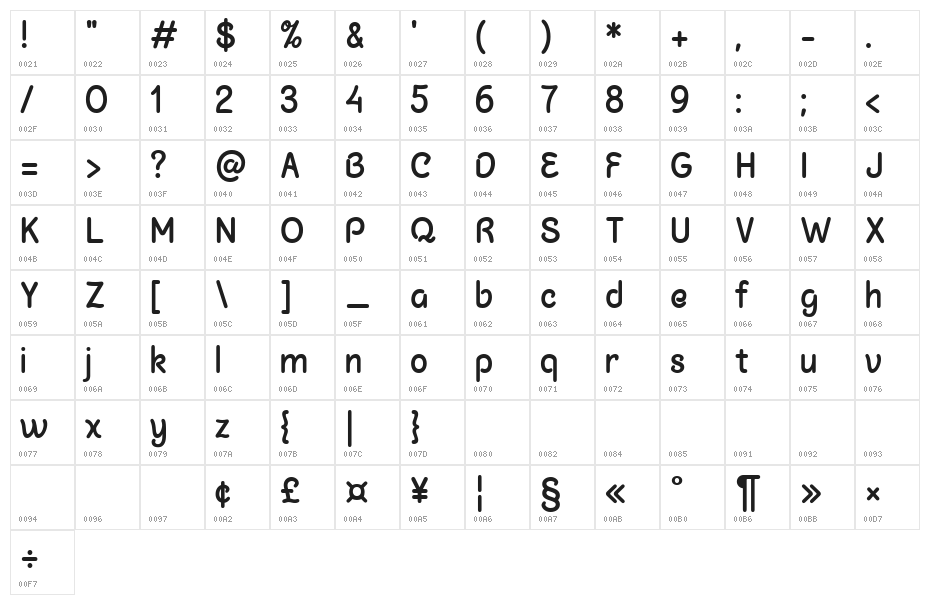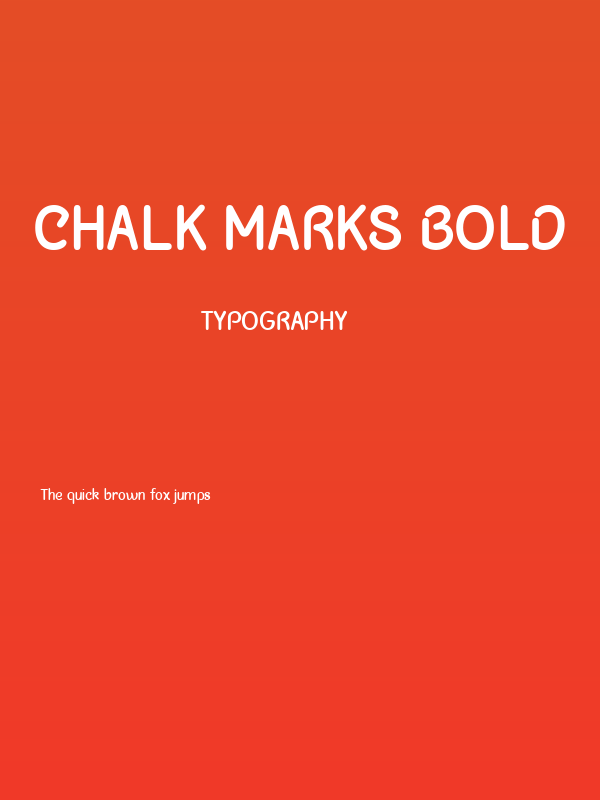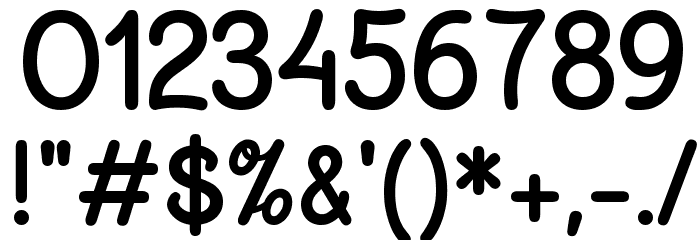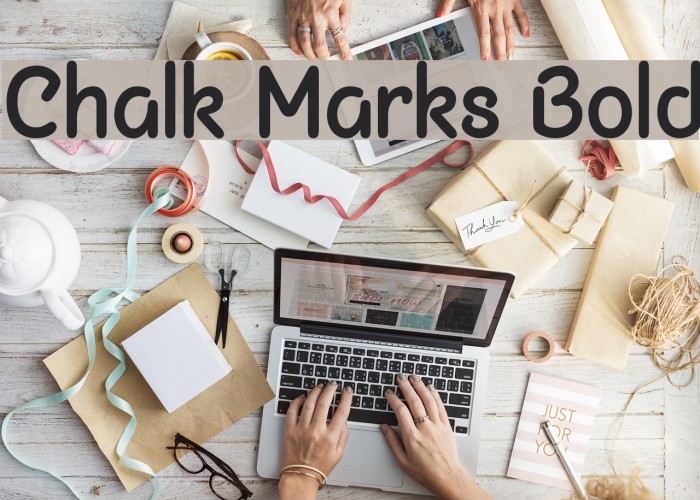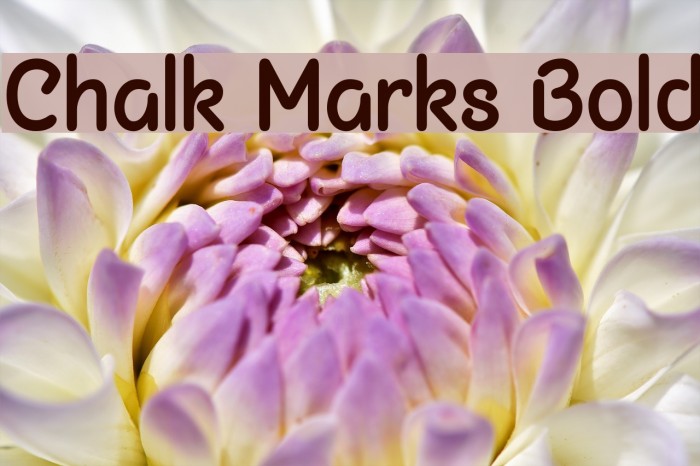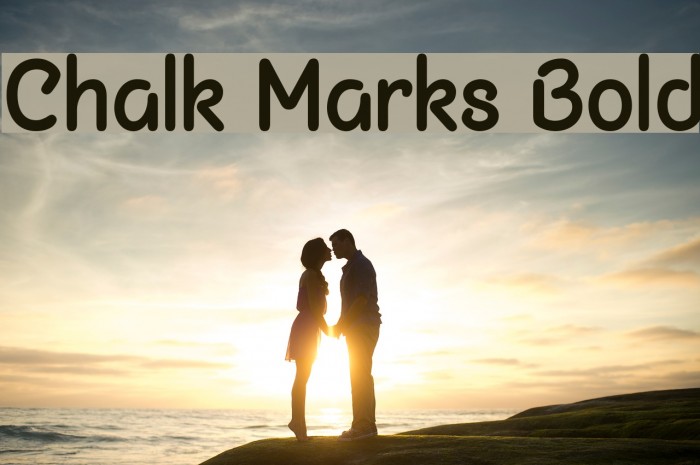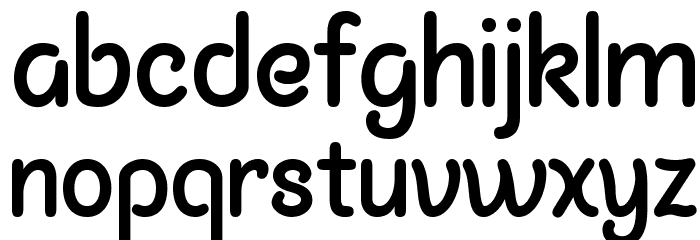
Chalk Marks Bold Font
This font exhibits a playful and bold style, reminiscent of chalk writing on a blackboard. The characters are rounded and smooth, with a consistent thickness that gives a friendly and approachable appearance. The uppercase and lowercase letters maintain a uniform height, contributing to its cohesive look. The numerals and special characters are designed to match the overall style, ensuring readability and aesthetic harmony. This font's boldness makes it stand out, while its rounded edges soften its impact, making it suitable for a variety of creative applications.
| Proposed Projects | Ideal for educational materials, children's books, playful branding, and creative posters. |